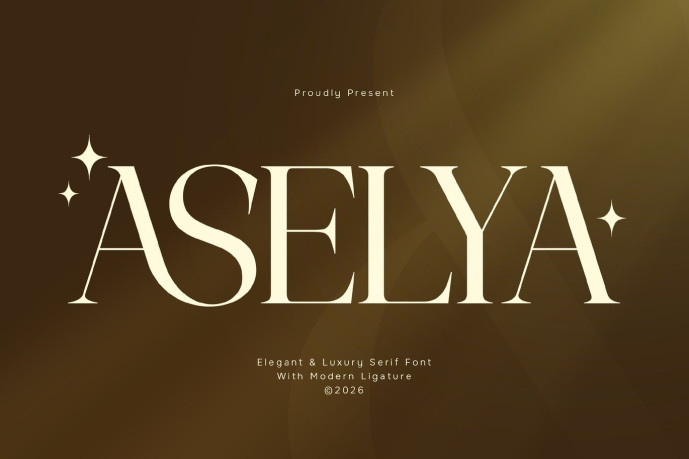
Aselya Elegant Serif Font
Elegant & Luxury Serif Font – Aselya
Aselya is an elegant and luxury serif font created to embody grace, prestige, and timeless sophistication. Every letter is carefully sculpted with refined high-contrast strokes, graceful curves, and delicate serif details, resulting in a typeface that radiates confidence and effortless beauty. Its harmonious balance between classic elegance and modern refinement makes Aselya a captivating choice for brands that seek a truly premium visual identity.
Features: Uppercase & Lowercase Alternates & Ligatures Numerals & Punctuation Multilingual Support